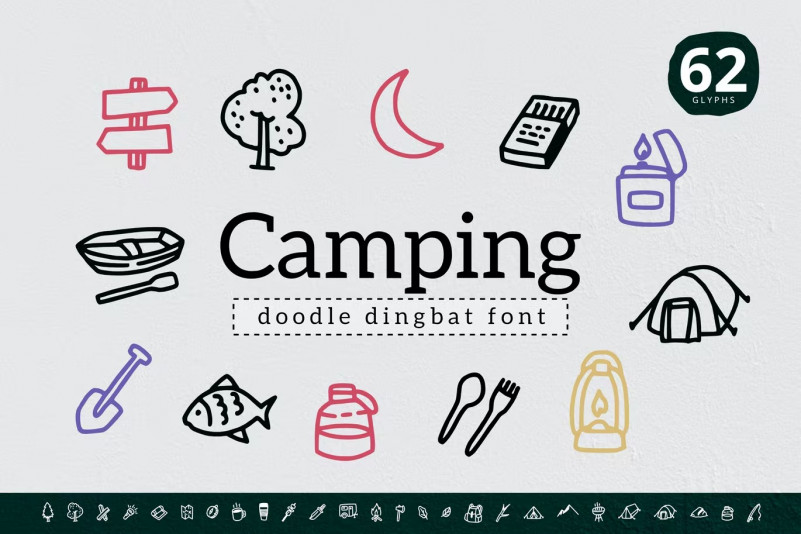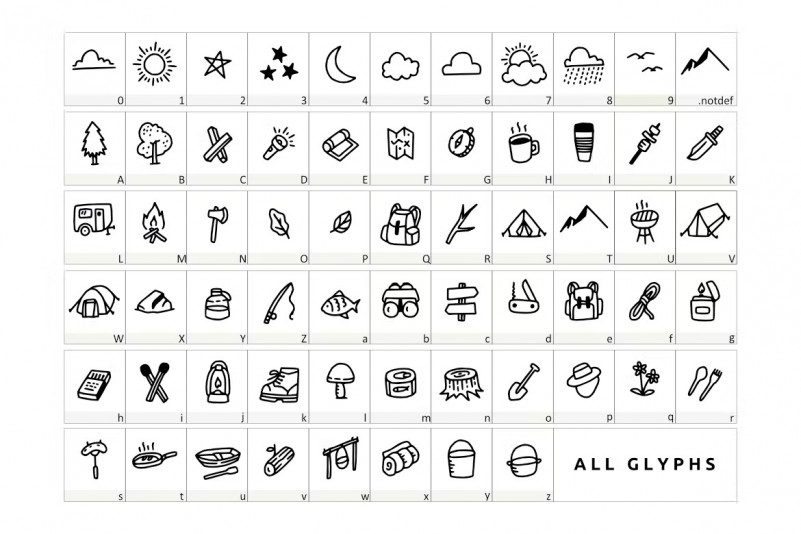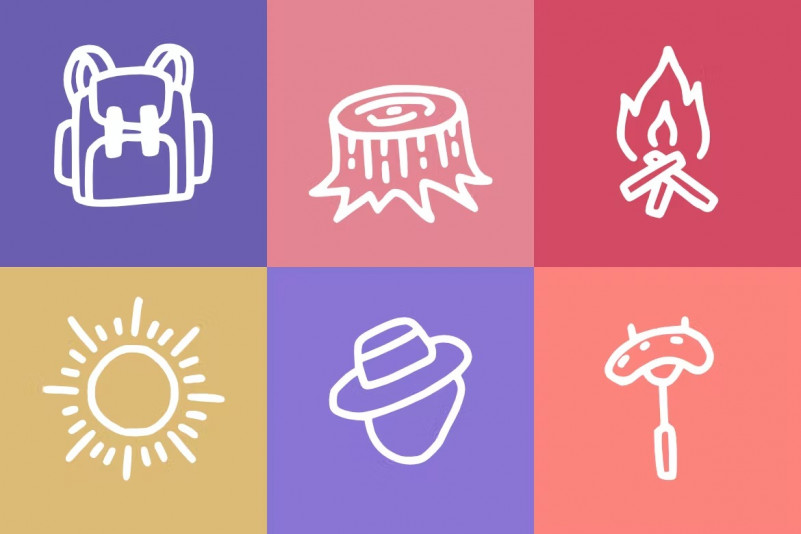
Camping Dingbat Font
Camping Dingbat
Simple camping doodle dingbat, suitable for many projects, Logo, ornaments, etc. Contain 62 symbols as preview above.